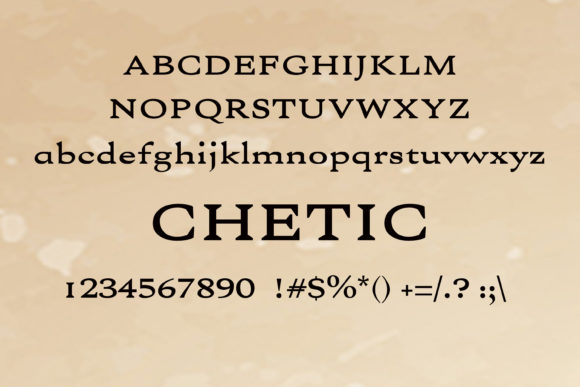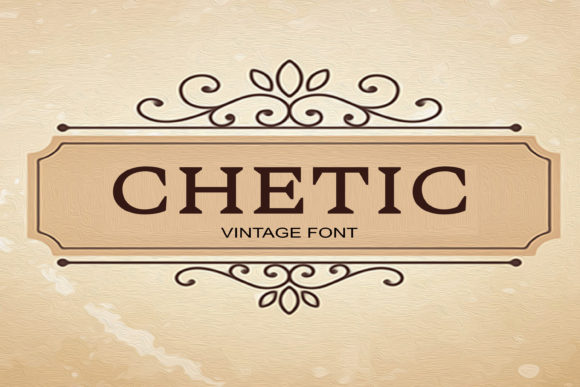
Chetic Font: A Timeless Vintage Serif Typeface
Are you a designer or crafter looking for a font that exudes a classic, old-school charm? Look no further than Chetic Font, a beautiful vintage serif typeface that is sure to capture your heart. With its traditional look and feel, Chetic Font is the perfect choice for a wide range of design projects, from elegant branding and packaging to stylish stationery and crafts.
The Charm of Chetic Font
Chetic Font is a serif typeface that is deeply rooted in the traditions of classic typography. Its elegant letterforms, with their subtle curves and refined lines, evoke a sense of nostalgia and sophistication. The font’s vintage feel is perfect for designers who want to add a touch of timelessness to their work, or for crafters who want to create unique and eye-catching projects that stand out from the crowd.
Key Features of Chetic Font
So, what makes Chetic Font so special? Here are just a few of its key features:
- Vintage serif typeface: Chetic Font is a classic serif typeface with a traditional look and feel.
- Elegant letterforms: The font’s letterforms are refined and elegant, with subtle curves and lines that add to its vintage charm.
- Timeless appeal: Chetic Font has a timeless quality that makes it perfect for a wide range of design projects, from modern branding to traditional crafts.
- Highly versatile: The font is highly versatile, and can be used for a wide range of applications, from headings and titles to body text and more.
Uses for Chetic Font
Chetic Font is a highly versatile typeface that can be used for a wide range of design projects. Here are just a few ideas to get you started:
- Branding and packaging: Chetic Font is perfect for creating elegant and sophisticated branding and packaging designs.
- Stationery and crafts: The font’s vintage feel makes it ideal for use in traditional stationery and crafts, such as handmade cards and invitations.
- Web design: Chetic Font can be used to add a touch of elegance and sophistication to web designs, from headings and titles to body text and more.
- Print design: The font is perfect for use in a wide range of print designs, from brochures and flyers to posters and more.
Why Choose Chetic Font?
So, why should you choose Chetic Font for your next design project? Here are just a few reasons:
- Unique and distinctive: Chetic Font is a unique and distinctive typeface that will help your designs stand out from the crowd.
- Timeless appeal: The font’s timeless quality ensures that your designs will remain stylish and relevant for years to come.
- High-quality design: Chetic Font is a high-quality typeface that is designed to deliver exceptional results, every time.
In conclusion, Chetic Font is a beautiful vintage serif typeface that is perfect for designers and crafters who want to add a touch of classic charm to their work. With its elegant letterforms, timeless appeal, and highly versatile design, Chetic Font is the perfect choice for a wide range of design projects. So why not fall in love with Chetic Font today, and discover the perfect typeface for your next design project?